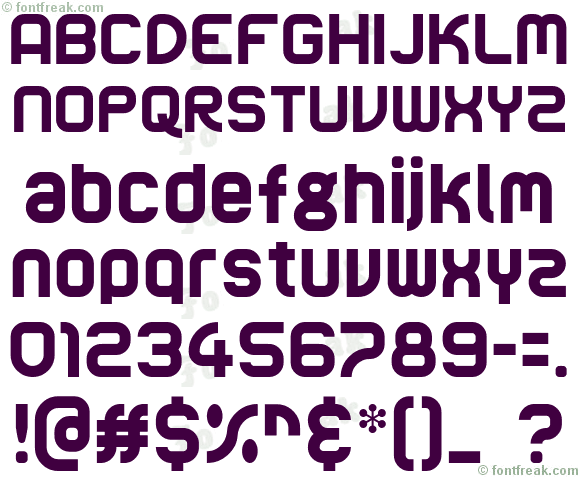
Audex
Audex Italic
About Audex
Audex is a striking display typeface designed by GGBot, characterized by its bold, contemporary aesthetic. This sans-serif font showcases a unique blend of geometric shapes and smooth curves, making it an excellent choice for a variety of design applications. The stroke weight is consistent throughout, providing a sturdy presence, while the slightly condensed spacing adds to its modern feel. The italics variant introduces a dynamic flair, adding a touch of elegance to any project.
Ideal for a range of creative uses, Audex shines in areas such as branding, where its distinctive style can help a business stand out. It works beautifully for eye-catching movie posters, lending a sense of drama and urgency to visuals. Additionally, the font is perfect for restaurant menus, providing a contemporary yet approachable vibe that invites diners to explore the offerings. Wedding invitations also benefit from its unique character, as the font’s clean lines and stylish italics create an inviting and celebratory atmosphere. Graphic designers and content creators will find Audex to be a versatile tool in their font arsenal, suitable for both digital and print projects.